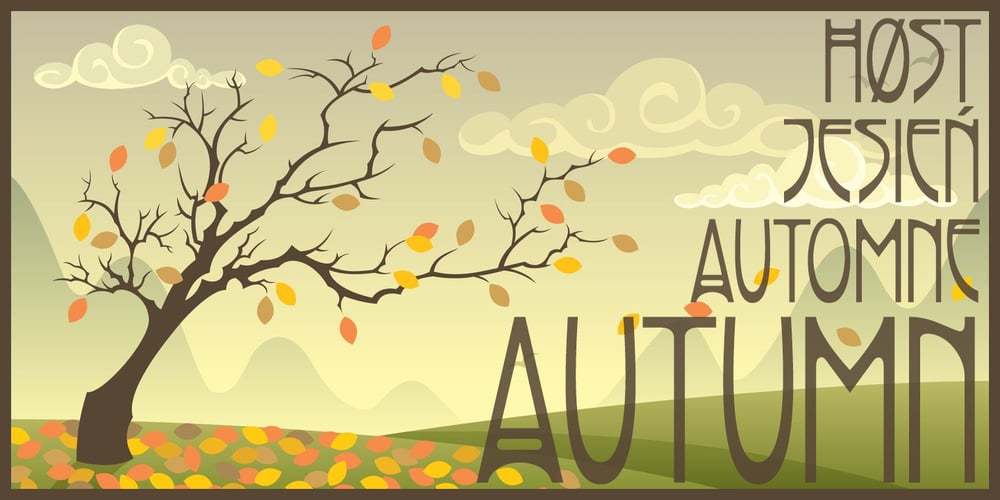
Rivanna NF Pro Font Family was designed by Nick Curtis, Roger S. Nelsson and published by CheapProFonts. Rivanna NF Pro contains 1 styles and family package options. This font has a charming mix of the organic forms of the Art Nouveau style and the geometric forms of the Art Deco style – and it makes it work! Nick Curtis says: “A general-purpose Art Nouveau font that has been kicking around for a while under various names. As usual, redrawn for consistency and economy of line. Named, for no good reason, after the river that flows near Thomas Jefferson’s home, Monticello.” ALL fonts from CheapProFonts have very extensive language support: They contain some unusual diacritic letters (some of which are contained in the Latin Extended-B Unicode block) supporting: Cornish, Filipino (Tagalog), Guarani, Luxembourgian, Malagasy, Romanian, Ulithian and Welsh. They also contain all glyphs in the Latin Extended-A Unicode block (which among others cover the Central European and Baltic areas) supporting: Afrikaans, Belarusian (Lacinka), Bosnian, Catalan, Chichewa, Croatian, Czech, Dutch, Esperanto, Greenlandic, Hungarian, Kashubian, Kurdish (Kurmanji), Latvian, Lithuanian, Maltese, Maori, Polish, Saami (Inari), Saami (North), Serbian (latin), Slovak(ian), Slovene, Sorbian (Lower), Sorbian (Upper), Turkish and Turkmen. And they of course contain all the usual “western” glyphs supporting: Albanian, Basque, Breton, Chamorro, Danish, Estonian, Faroese, Finnish, French, Frisian, Galican, German, Icelandic, Indonesian, Irish (Gaelic), Italian, Northern Sotho, Norwegian, Occitan, Portuguese, Rhaeto-Romance, Sami (Lule), Sami (South), Scots (Gaelic), Spanish, Swedish, Tswana, Walloon and Yapese.